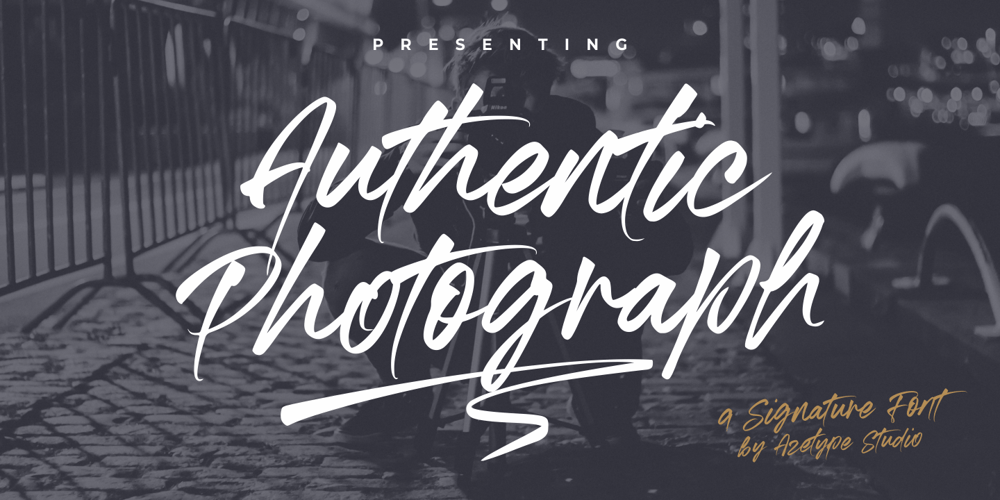
Authentic Photograph Font Family was designed by Muh. Aswar and published by Azetype. Authentic Photograph contains 1 styles and family package options. We proudly present Authentic Photograph just for you. This is a font that really characterizes from the handwritten style. This font is crafted carefully in every its single scratch, created to look as close to a natural handwritten script so that it can create the perfect combination on each glyph. When we make this font, we really want to create a touch that is so free-flowing that it gives a natural impression on its use later. For example, if you want letter ‘t’ that has a flow sketch with letter ‘t’, you can find it in ‘tt’ ligature glyph (just type in the text form below for trying).So if you really want a so natural and flowing touch in your project, Authentic Photograph gives you Natural Ligatures (combining of two or more letters in a glyph), Alternates, Extras (19 Swashes) and included Multi-lingual Support.Authentic Photograph is a signature font and obviously it’s so authentic ๐ Authentic Photograph offers beautiful typographic harmony for your design projects diversity e.g. logos & branding, social media posts, advertisements, product designs, quotes, watermark, photography, poster design, magazine, stationery, or simply as a stylish text overlay to any background image.